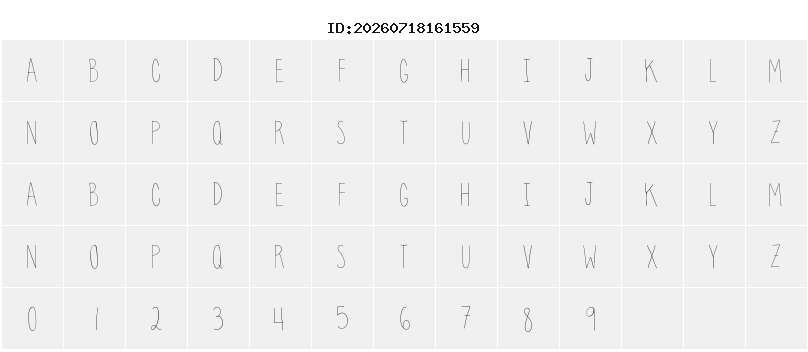
• Font Name: clean up your mess
• Full Font Name: clean up your mess
About clean up your mess.ttf
clean up your mess.ttf is a modern, elegant sans-serif font designed for ultimate readability and visual harmony. Perfect for branding, headlines, web design, and print materials.